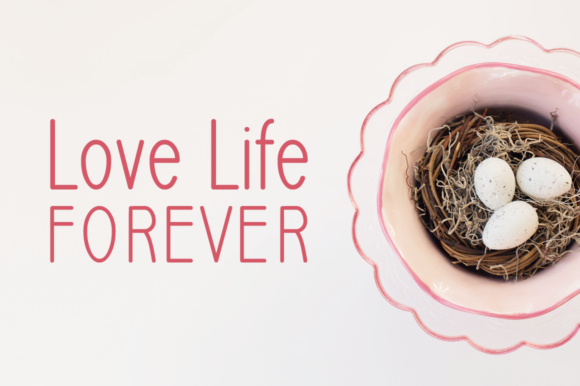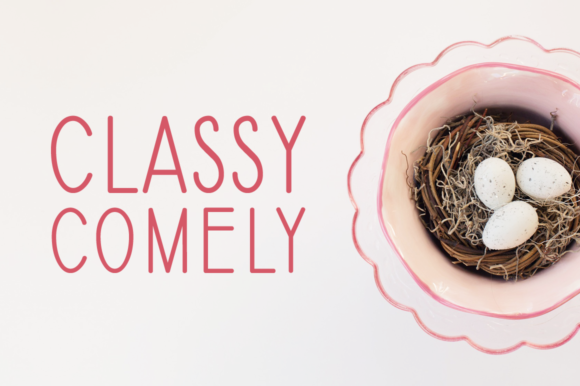
Introduction to Nest Font
You’ve spent hours poring over design inspiration boards, and finally, you’ve landed on the perfect concept for your creative project. But what’s missing is that one special element that brings everything together – a font that exudes sophistication and charm. That’s where the Nest Font comes in, a game-changing design resource that will elevate your visual identity to the next level.
With its unique blend of traditional influences and modern flair, the Nest Font offers unparalleled versatility. Its well-balanced Latin details create distinctive contrasts that will add depth and visual interest to your design. Whether you’re working on a high-quality logo, branding, or digital content, the Nest Font is the perfect choice to achieve an exquisite, yet subtle look.
Key Features of Nest Font
- Nest Font offers a high-quality design resource perfect for any creative project, with a wide range of styles and fonts to choose from.
- This font family features a transparent background, allowing for seamless integration with any design element.
- Nest Font is an ideal design resource for graphic designers, UI/UX designers, and digital artists, providing a versatile and stylish font for any creative project.
- The font family includes multiple weights and styles, allowing designers to customize their text to suit their specific design needs.
Honest Review: Nest Font
As a designer, I’m always on the lookout for high-quality fonts to elevate my creative projects. I recently had the chance to work with the Nest Font, and I’m excited to share my thoughts on it.
What works well: ✨ The Nest Font has a unique, modern aesthetic that’s perfect for contemporary designs. It’s also incredibly versatile, working well for both digital and print projects. The transparent background makes it easy to combine with other design elements.
- High-quality design resource
- Unique, modern aesthetic
- Transparent background for easy combination
Limitations: ⚠️ While the Nest Font is generally well-behaved, I did encounter some issues with scaling on smaller devices. This may not be a major concern for all designers, but it’s something to keep in mind.
Overall, I’m impressed with the Nest Font. Its modern design and versatility make it a valuable addition to any designer’s toolkit. While there are some minor limitations, I’d definitely recommend it for any creative project.
Nest Font
Nest Font is a high-quality design resource perfect for any creative project. With a transparent background, it can be easily integrated into various design platforms.
Tips for Getting the Most Out of Nest Font
To get the most out of Nest Font, use it in conjunction with other design elements to create visually appealing graphics and presentations. Experiment with different font sizes, colors, and styles to find the perfect combination.
Nest Font is perfect for a variety of creative projects, including:
– Branding and logos
– Infographics and data visualizations
– Social media graphics and advertising
– Presentations and reports
Alternatives to Nest Font
Open Sans is a high-quality sans-serif font that is ideal for creative projects requiring a clean and modern look. It features a transparent background and is highly legible on various devices. When to use: For headings and body text in digital design projects, especially those with a minimalistic aesthetic.
Comparison to Nest Font: Open Sans is a more versatile font with a wider range of weights and styles, making it suitable for a broader range of design applications.